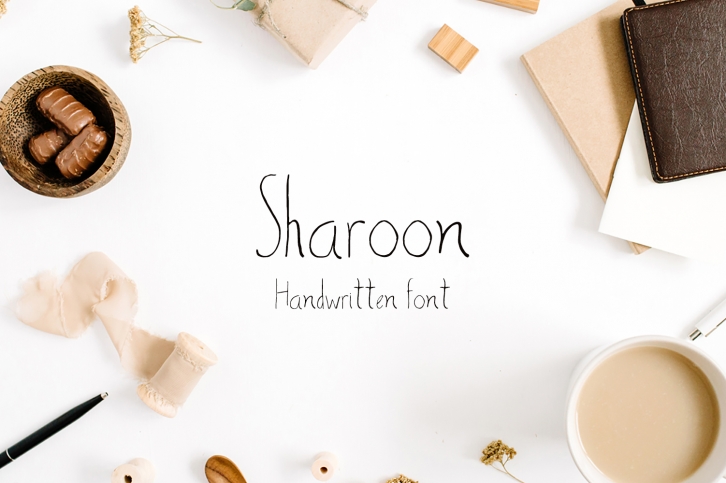
Sharoon Handwritten Sans Serif is a gorgeous font that was realeased on February 13, 2018. The font can be used in many style contexts and design environments. Perfect for invitations, magazines, websites, logos, and more! It was designed by Creativetacos and the file size is 14.69 MB. Thanks for checking out this font!